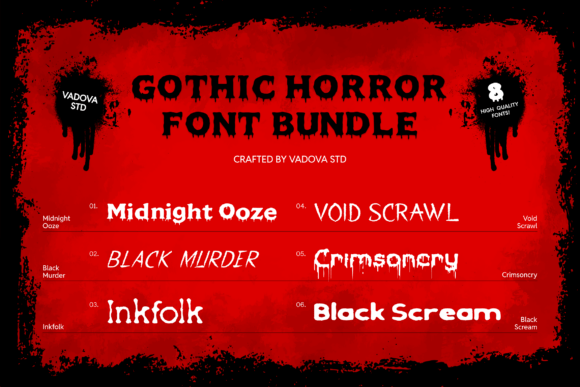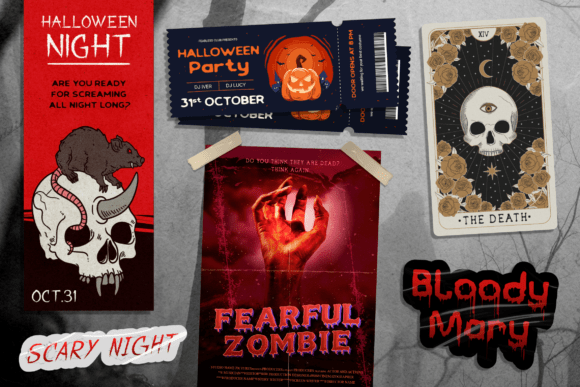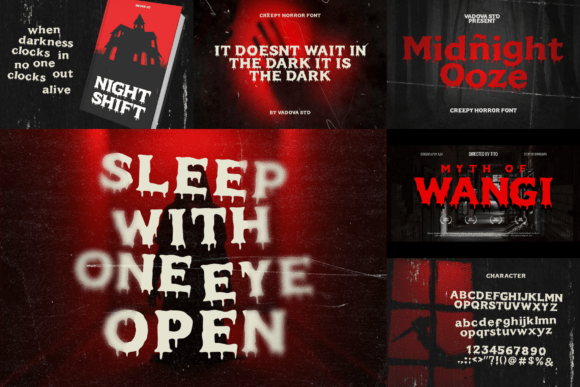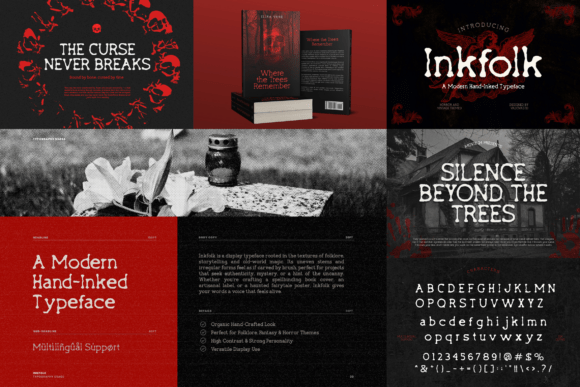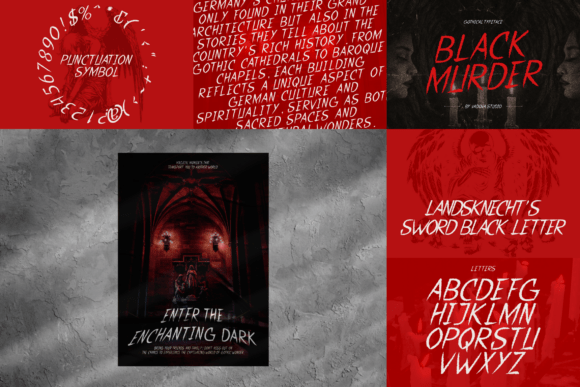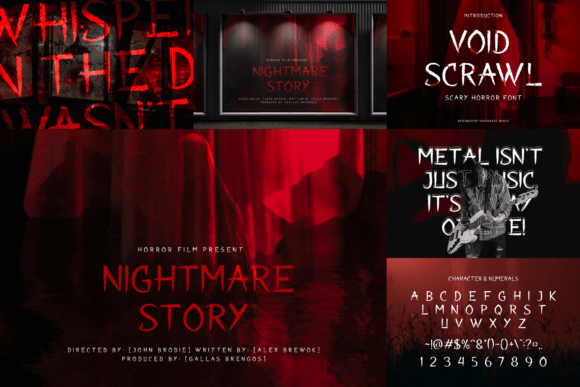
Unleash the Fear: A Deep Dive into the Gothic Horror Font Bundle
I’ll never forget the night I was working on a horror-themed project for a client, and I just couldn’t find the right font to capture the eerie atmosphere. The project was a haunted house brochure, and I wanted something that would make the reader’s skin crawl. That’s when I stumbled upon the Gothic Horror Font Bundle. It was like a breath of fresh air – or should I say, a scream in the darkness? 😱
This font bundle is a collection of typefaces designed to evoke fear, mystery, and a dark atmosphere. Inspired by gothic horror, haunted visuals, and classic terror aesthetics, it’s perfect for designers, crafters, and creative hobbyists looking to add a touch of macabre to their work.
What’s in the Bundle?
The Gothic Horror Font Bundle features a range of expressive letterforms with dripping details, rough textures, and unsettling character shapes. Each font is crafted for maximum impact in display use, making it ideal for:
- Horror posters
- Movie titles
- Game visuals
- Album covers
- Spooky branding
Honest Review
- ✅ The fonts are incredibly versatile, with a range of styles to suit different design needs.
- ✅ The attention to detail is impressive, with intricate textures and dripping effects that add a level of realism to the designs.
- ✅ The fonts are easy to use, even for those who aren’t typography experts.
While the Gothic Horror Font Bundle is amazing, there are a few things to keep in mind:
- 🤔 Some fonts may require a bit of tweaking to get the spacing just right, especially when using all caps.
- ⚠️ The fonts may not be suitable for body text, as they’re designed primarily for display use.
The Gothic Horror Font Bundle was inspired by the dark, gothic aesthetic of classic horror movies and haunted houses. The designers behind the bundle wanted to create a collection of fonts that would evoke fear, mystery, and a sense of unease. They drew inspiration from the works of Edgar Allan Poe, H.P. Lovecraft, and other masters of horror literature.
| Font Name | Gothic Horror Bundle Font |
| Author | Vadova Std |
Q: Are the fonts suitable for body text?
A: No, the fonts in the Gothic Horror Font Bundle are designed primarily for display use and may not be suitable for body text.